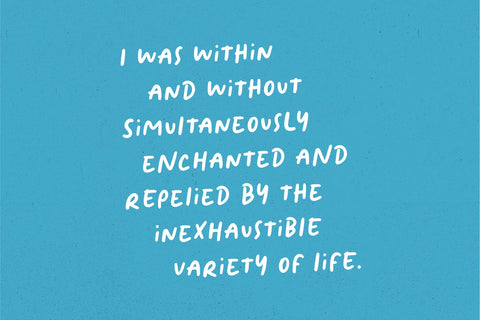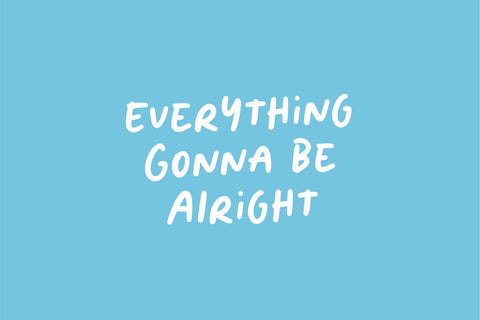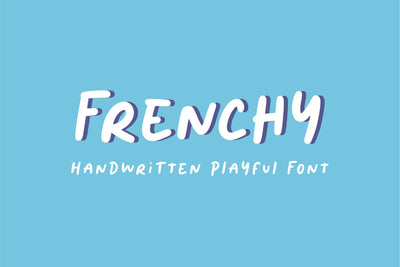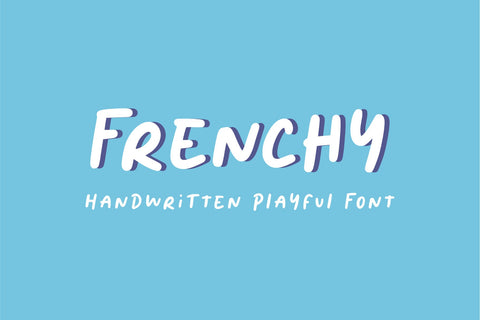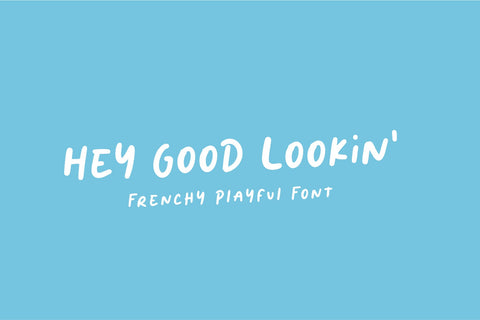
Frenchy - Handwritting Font
Say hello to Frenchy, perfect for that hand-lettered social media quote, creating handwritten notes, logos, or just adding a hand-written touch to any project!
Multilingual support:
ÁÂÄÀÅÃÇÉÊËÈÍÎÏÌÑÓÔÖÒØÕŒŠÚÛÜÙÝŸŽ
àáâãäåçèéêëìíîïñòóôõöøœùúûüýÿšž